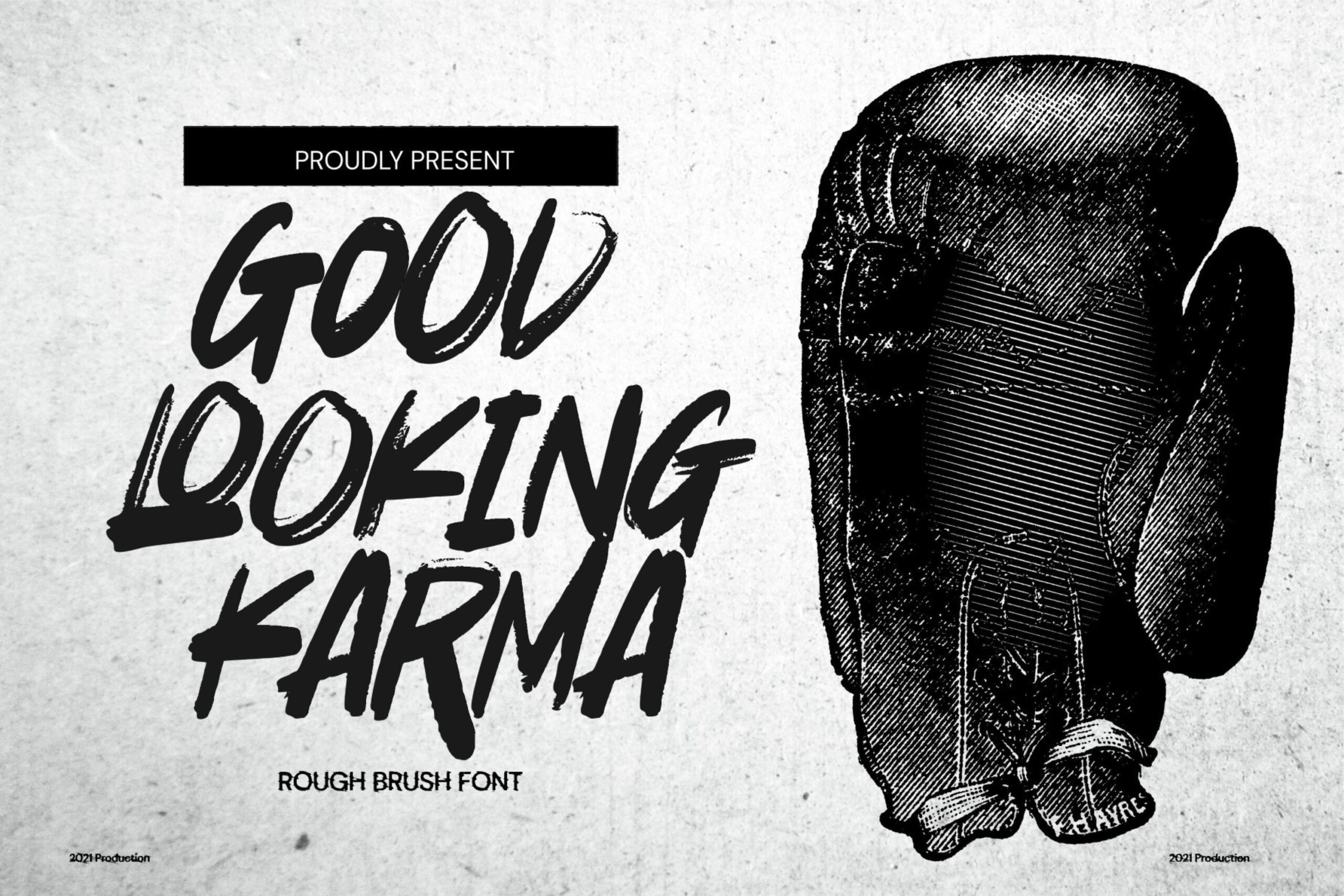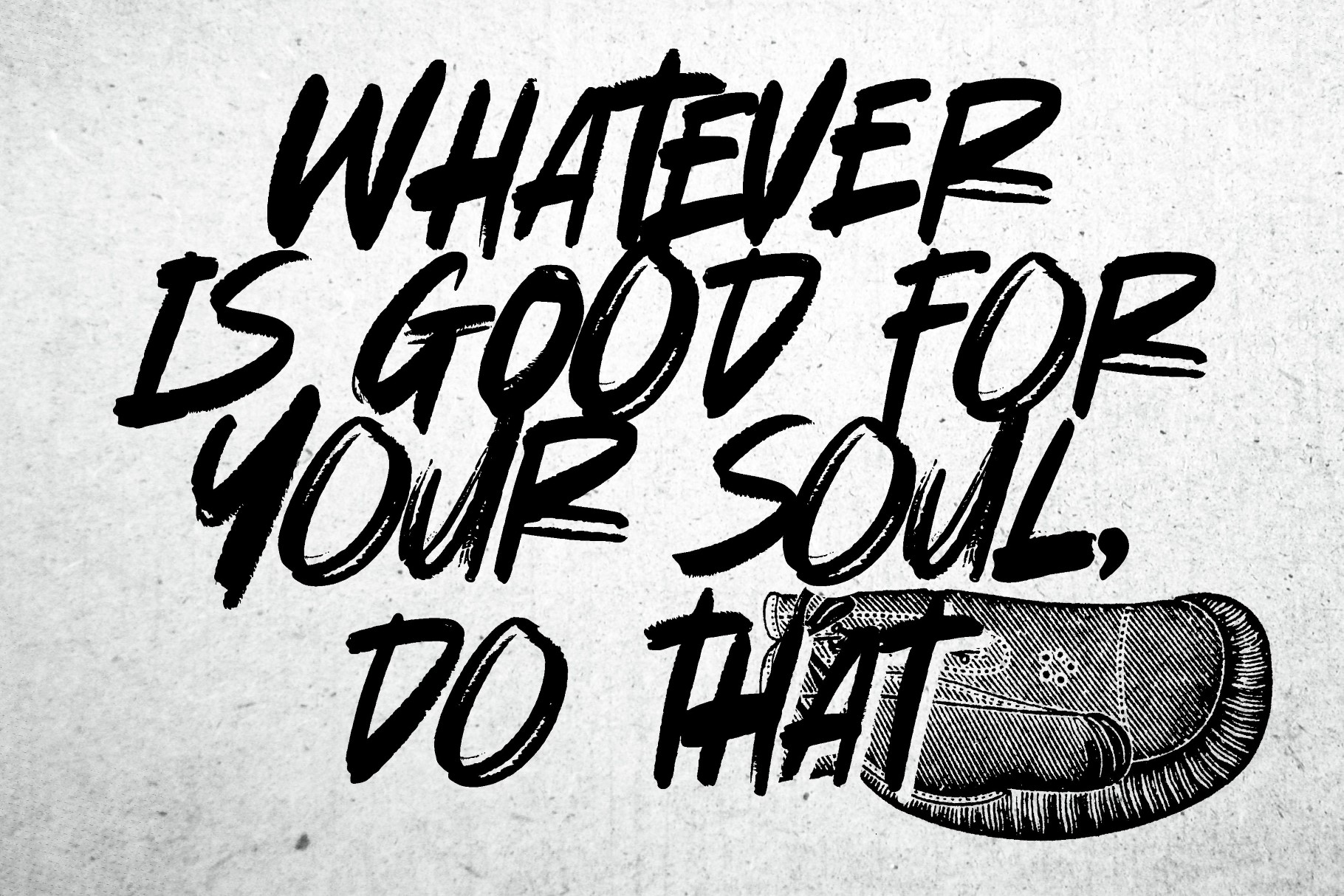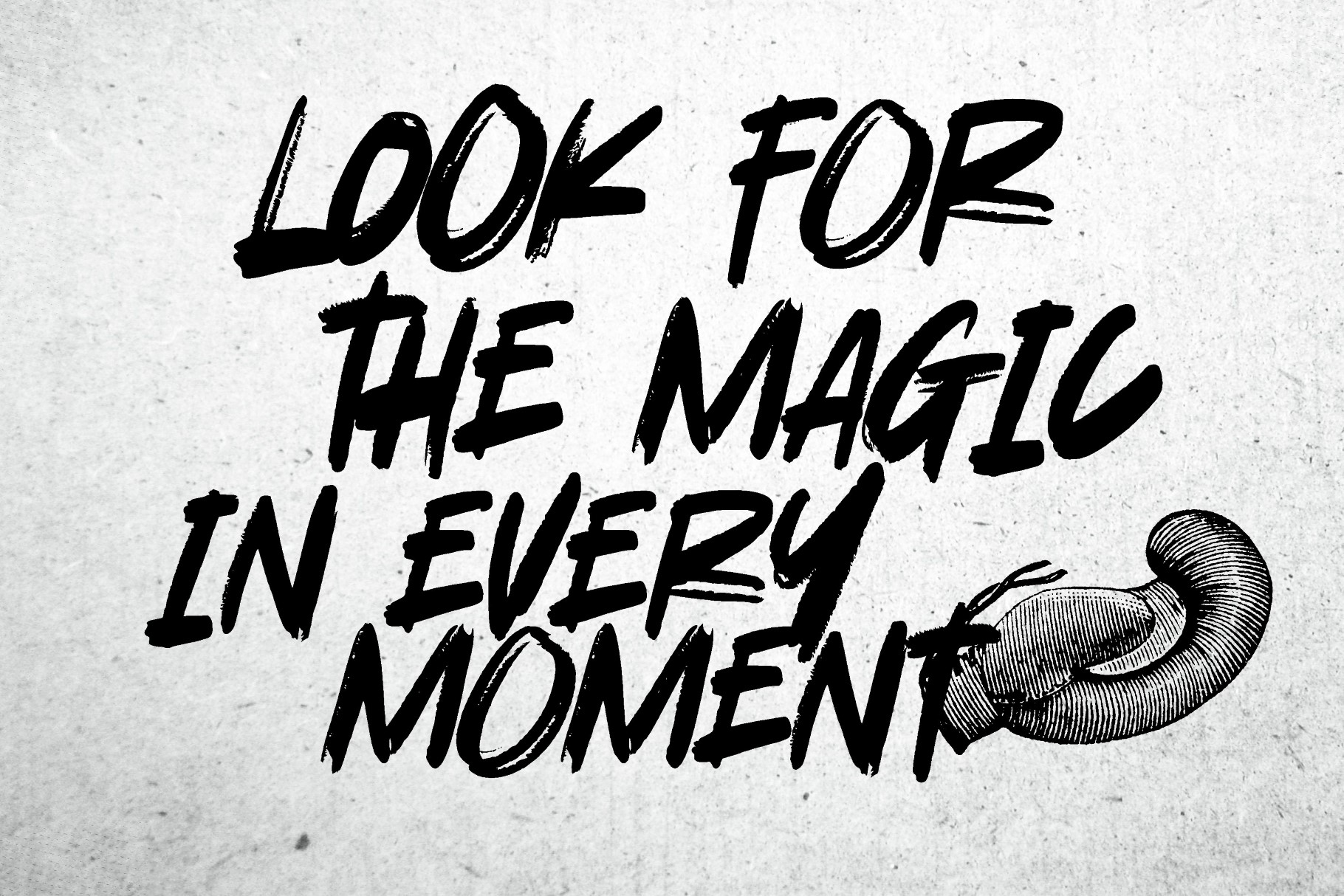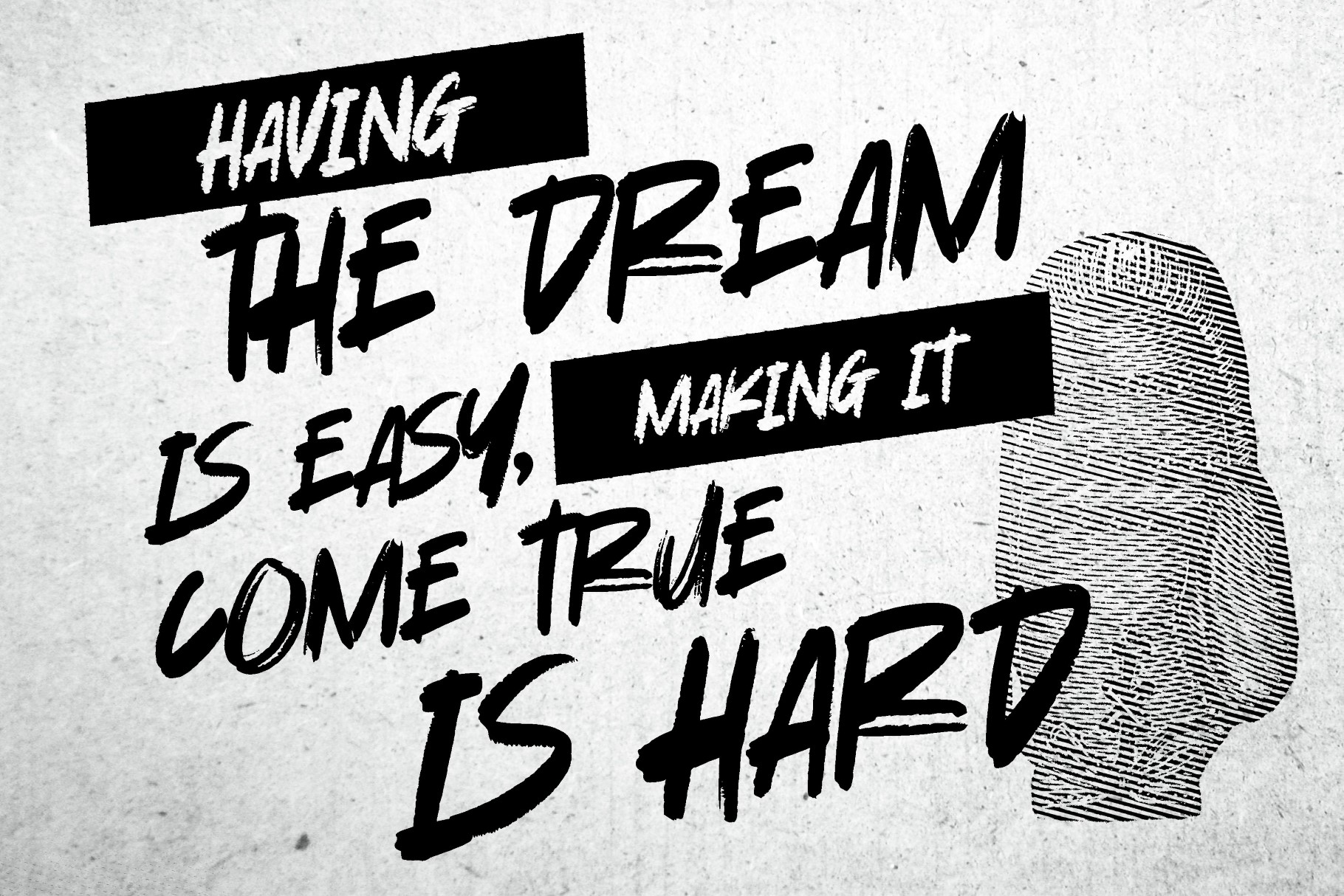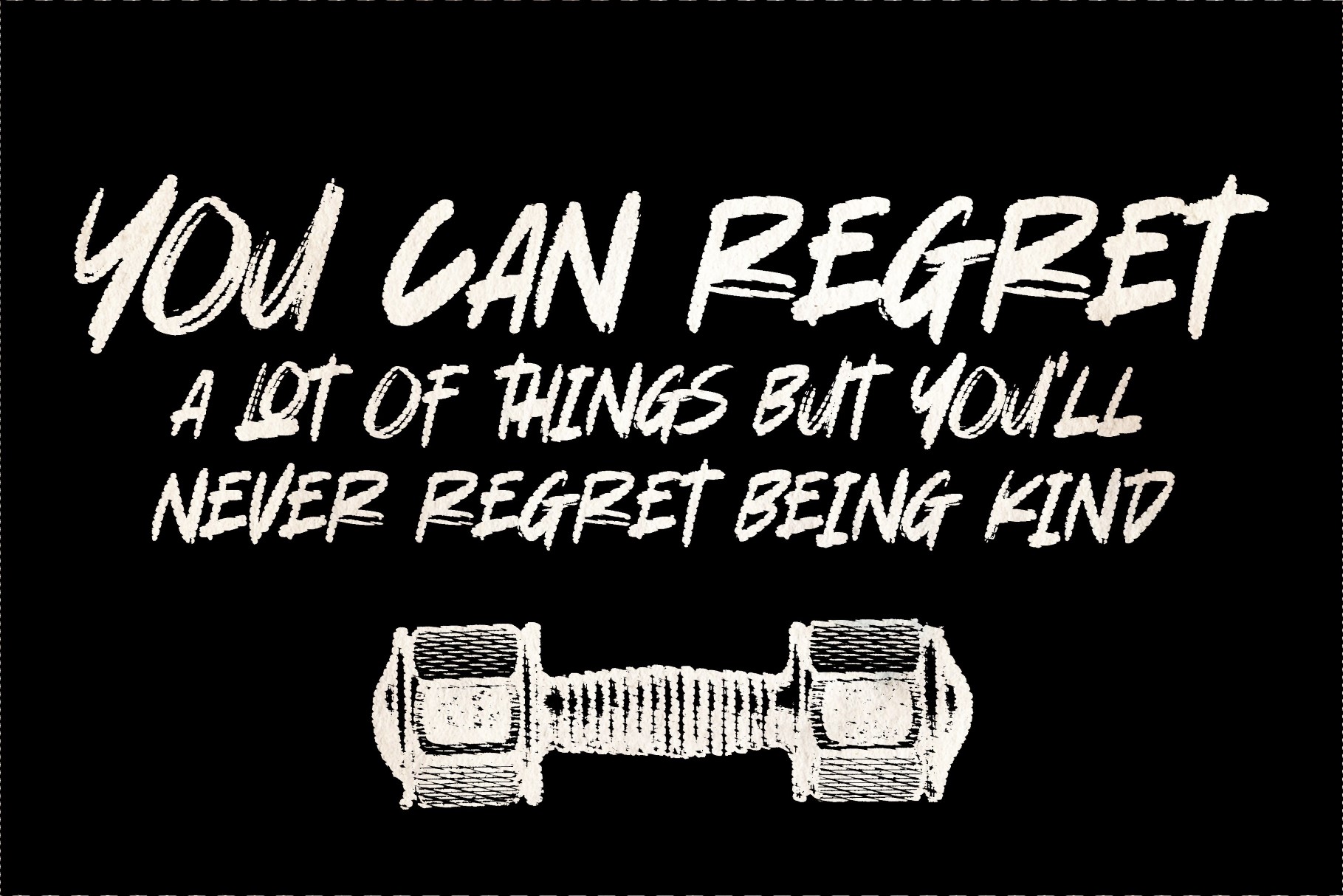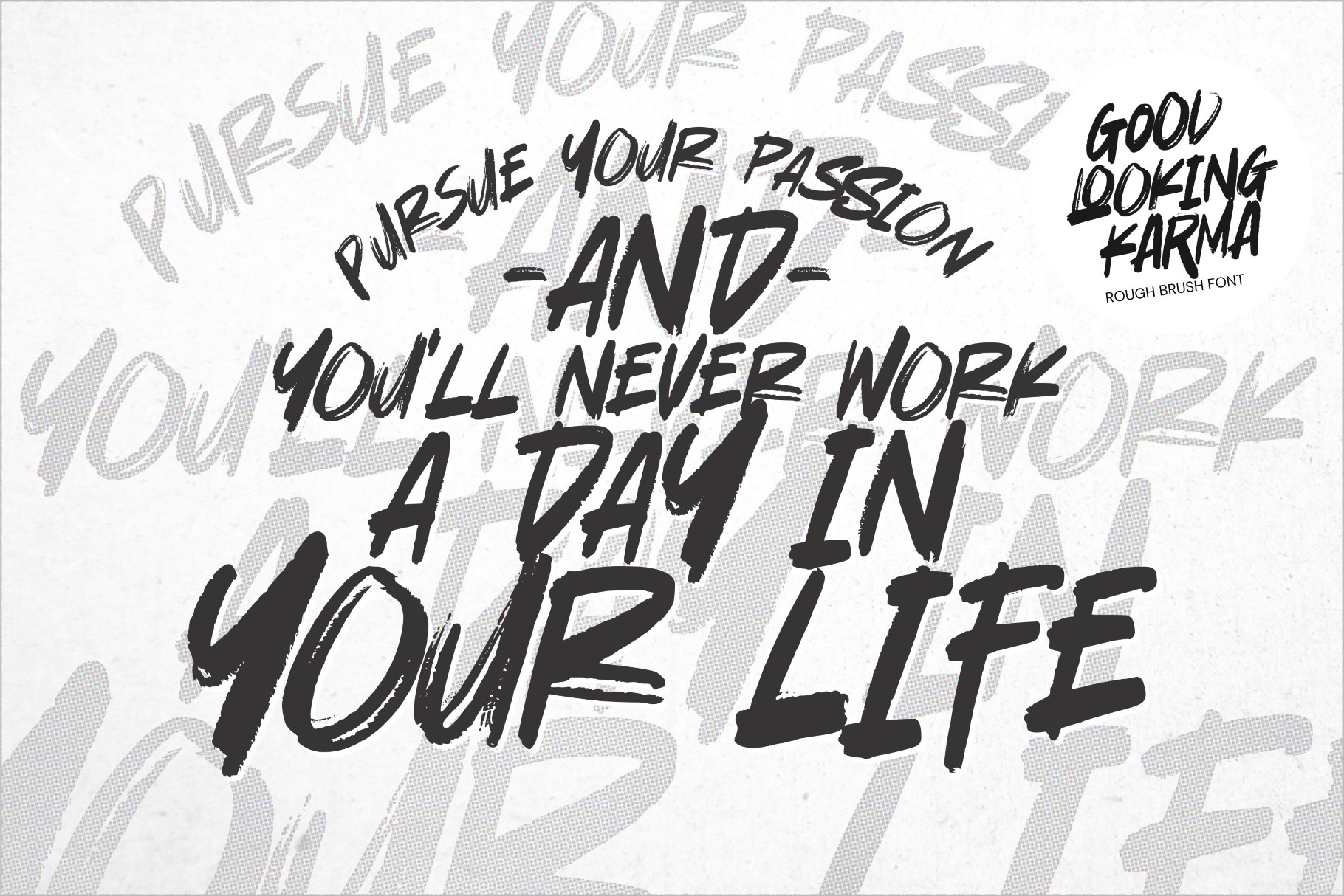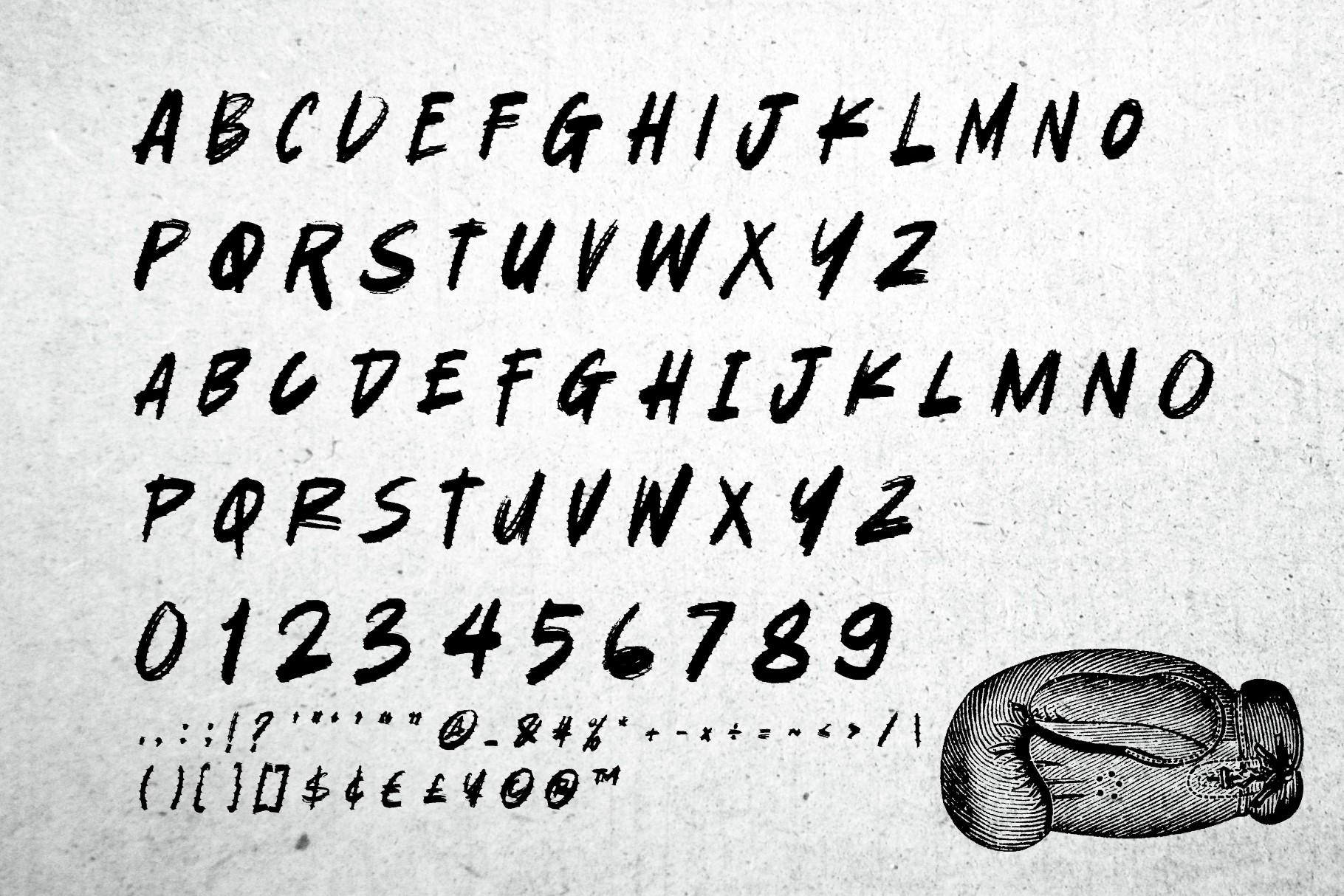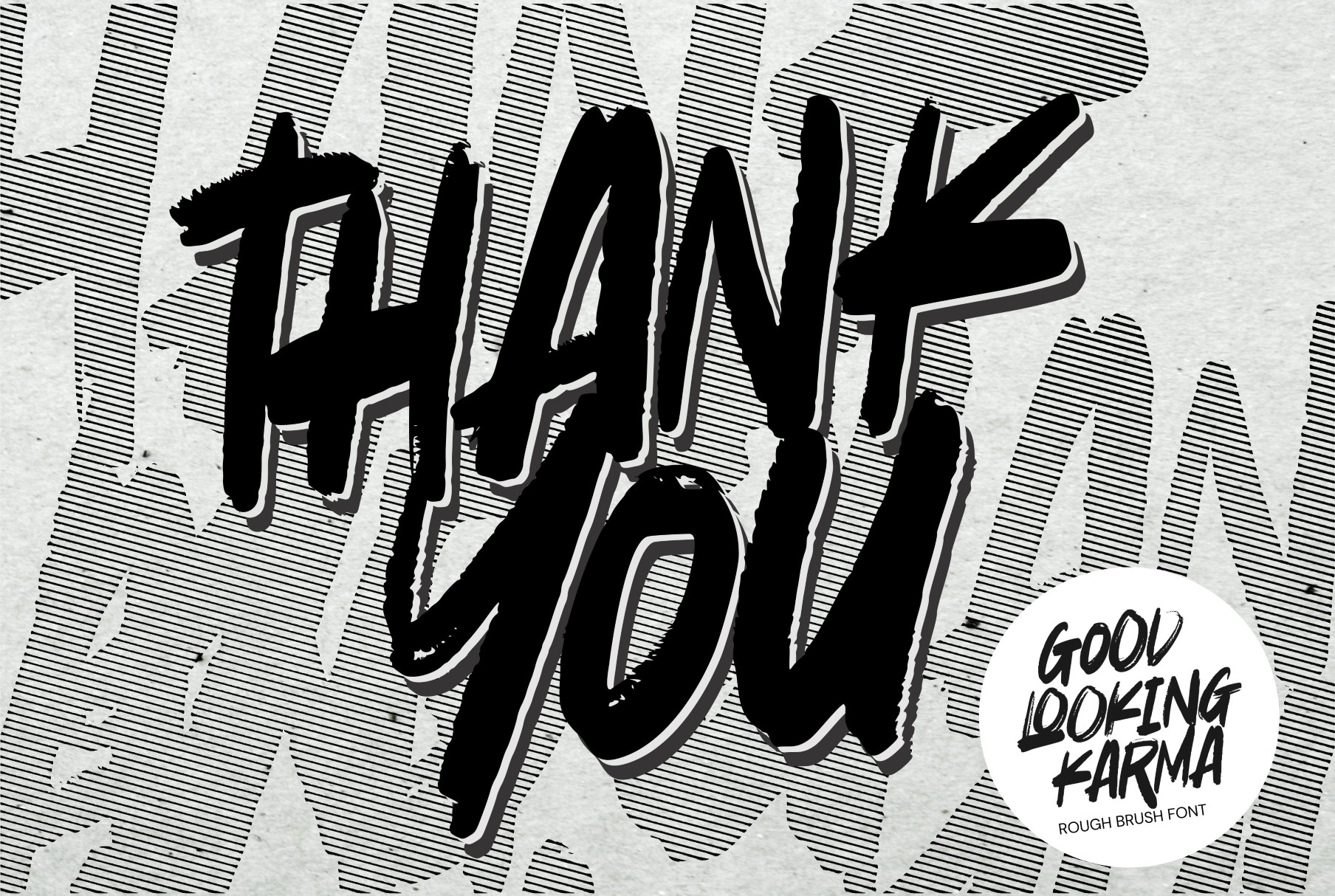
Good Looking Karma – Natural Rough Brush Font is an Authentic brush Font that is written casually and quickly.
That is why Good Looking Karma has a authentic, and strong characteristic more natural look.
Good Looking Karma Perfect for designs, branding projects, Logo design,Quotes product packaging and another Project that require cool strong brush font.